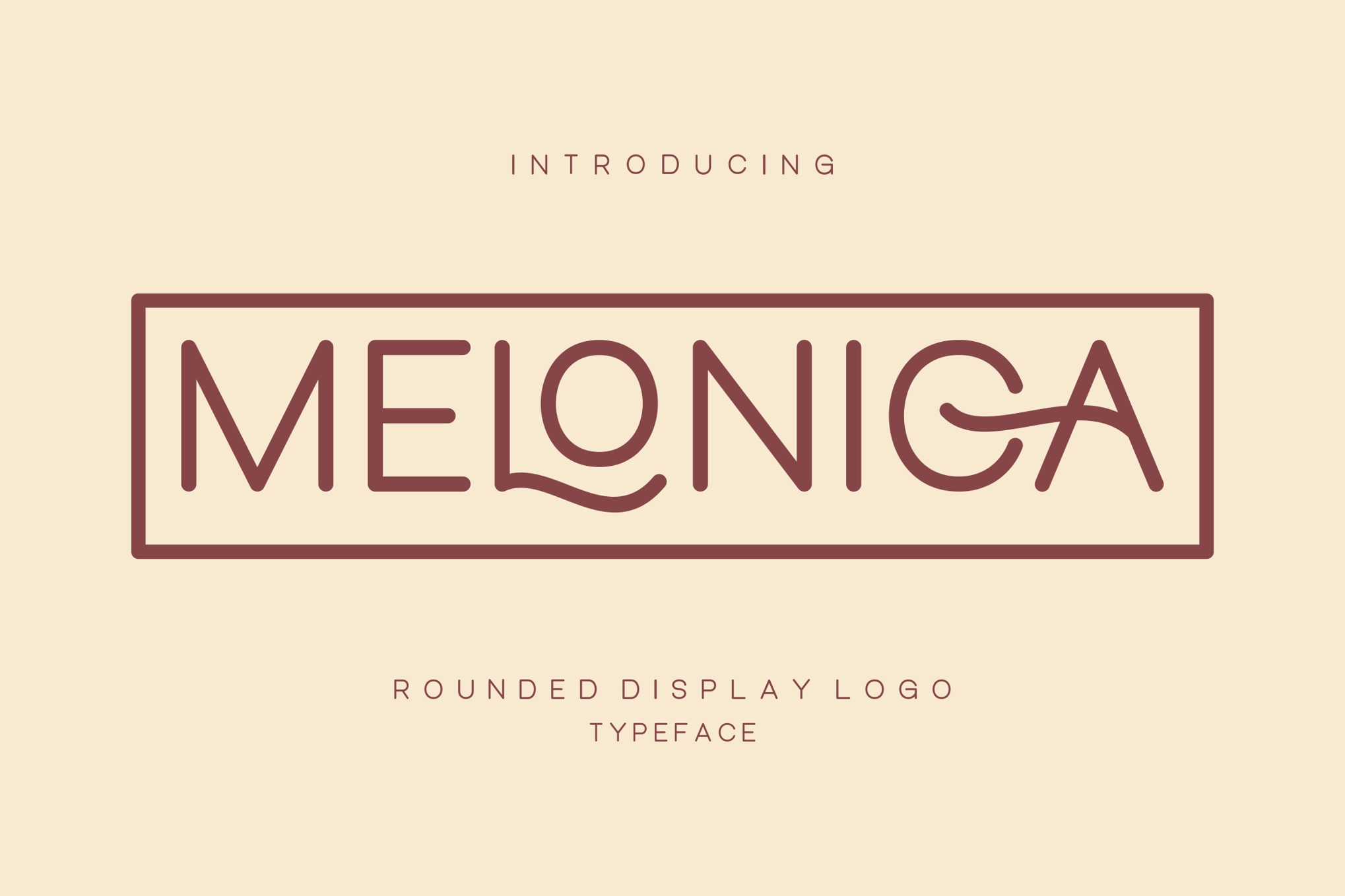
Melonica Font
Melonica Font is a flexible and reliable font created to fit multiple design needs, from branding and packaging to social media and editorial layouts. Melonica – Rounded Display Logo Typeface is a regular and authentic display font. The font is suitable for any branding project like logo, esport, and many more. outstanding in a wide range of contexts.